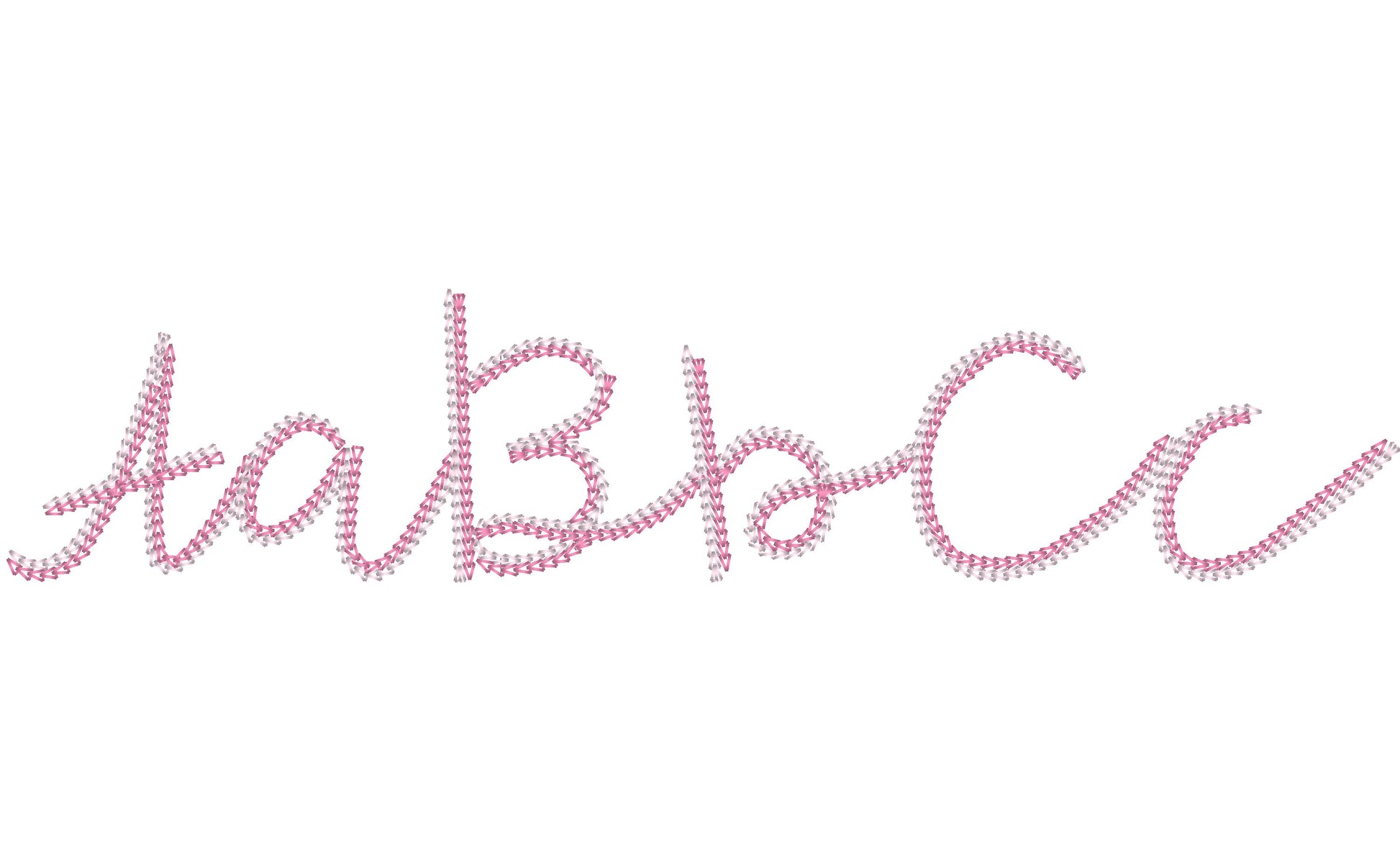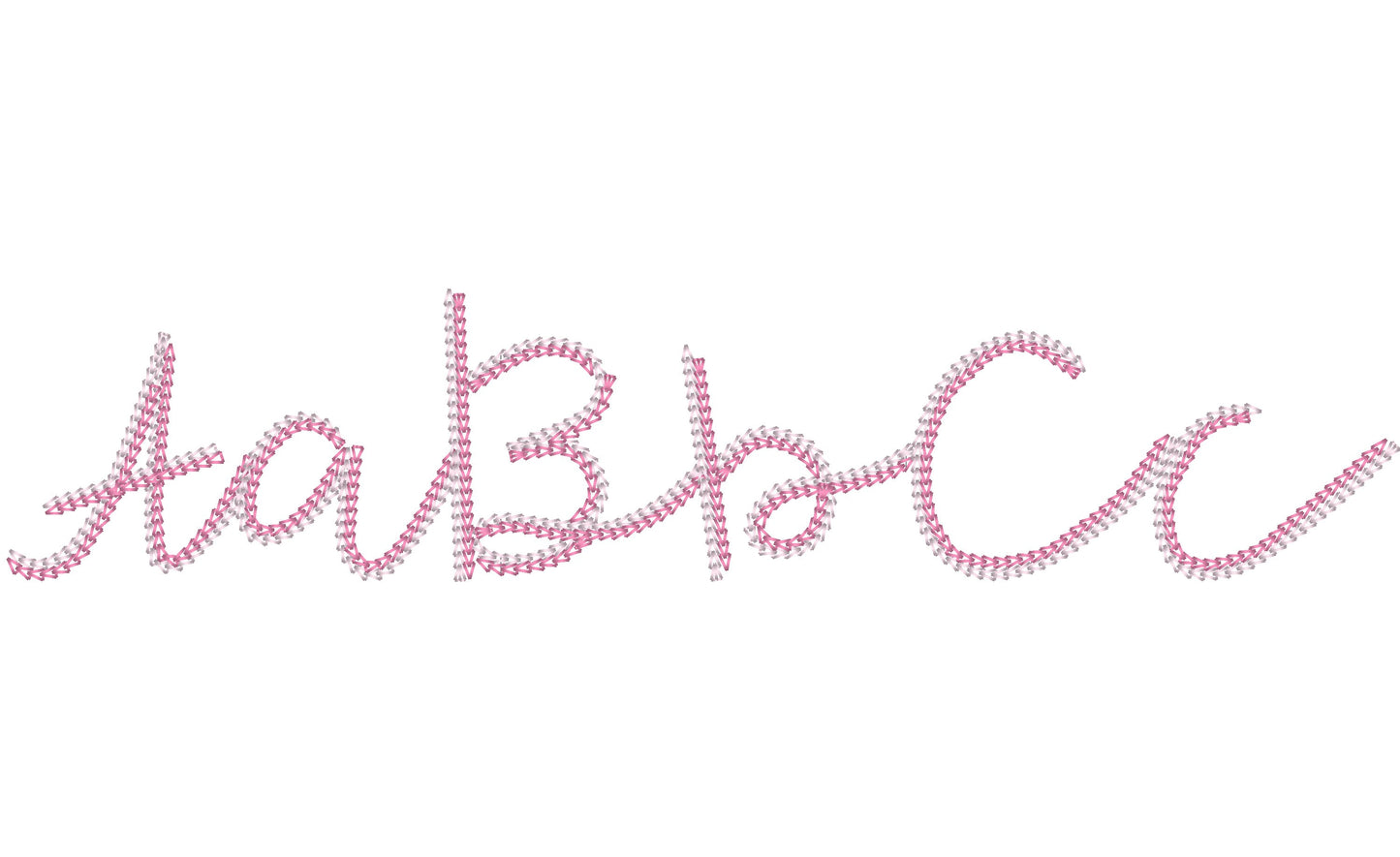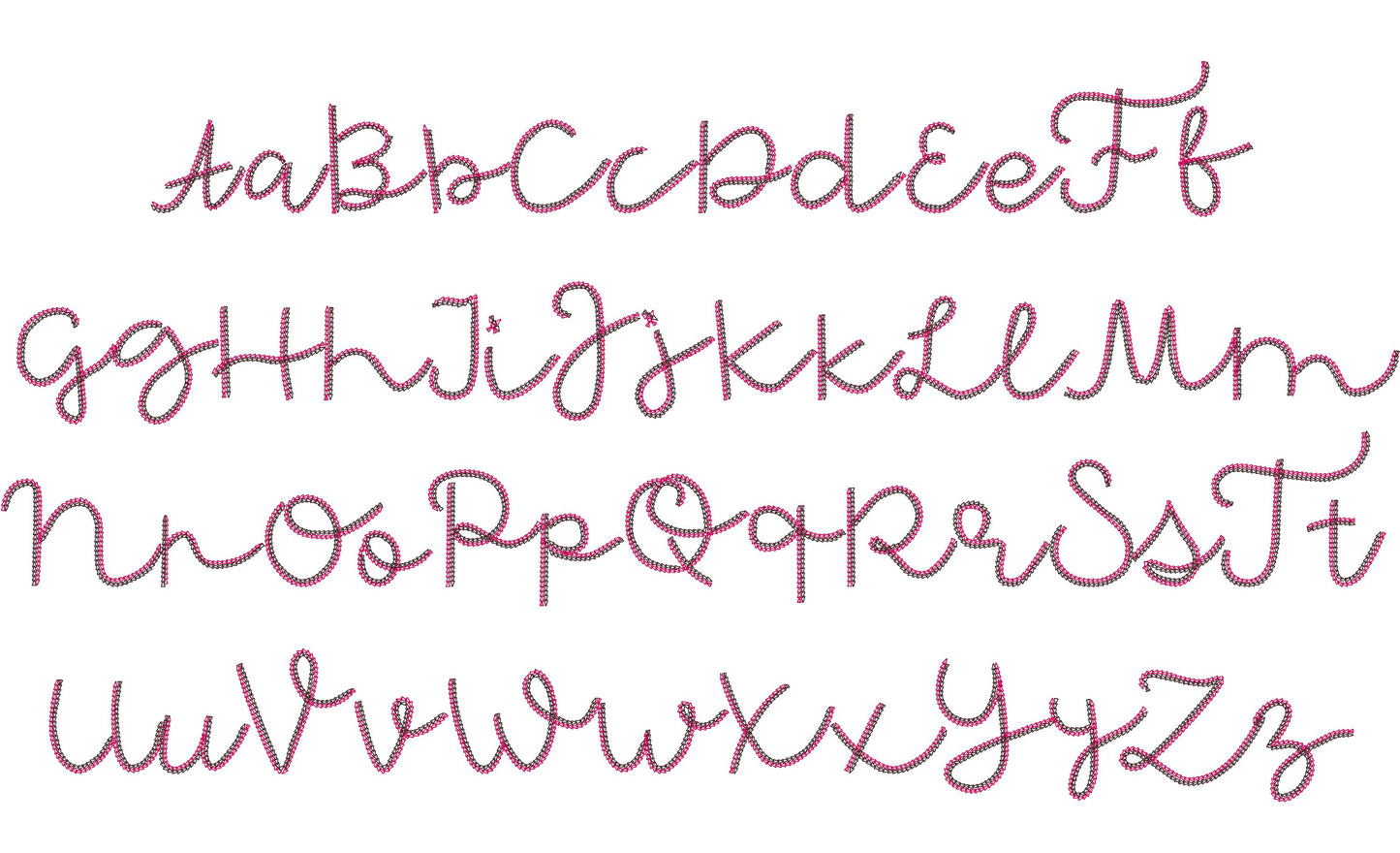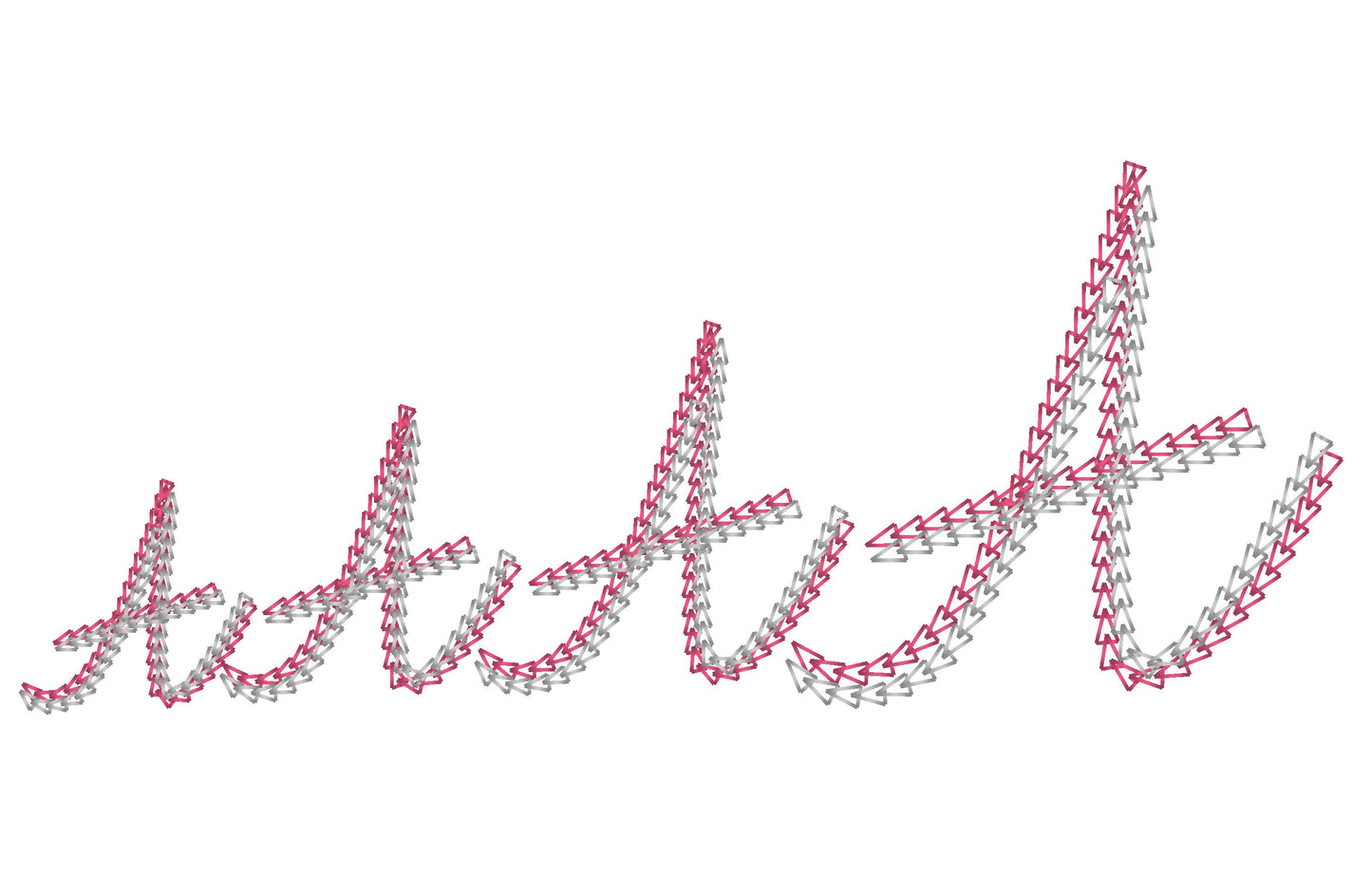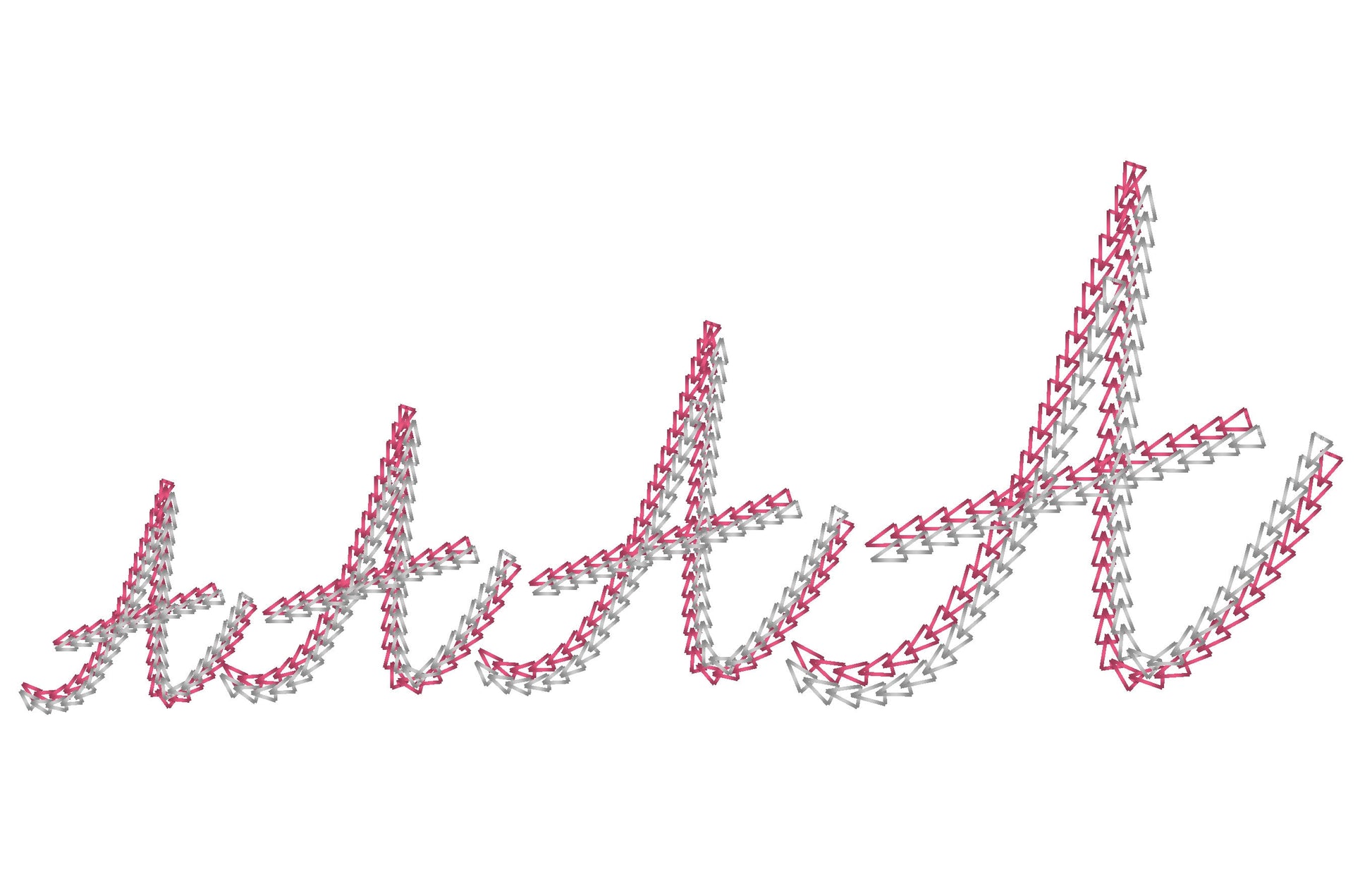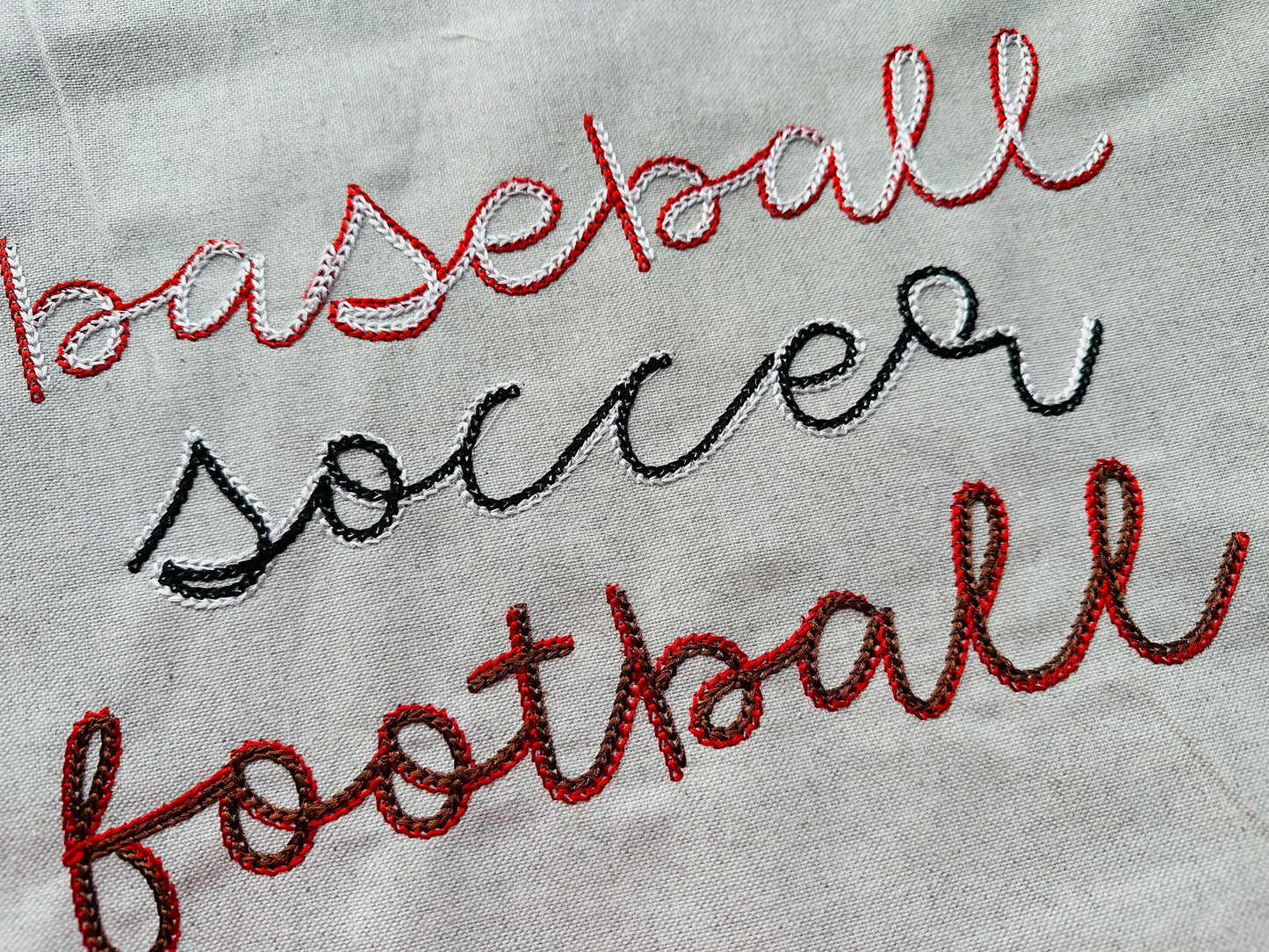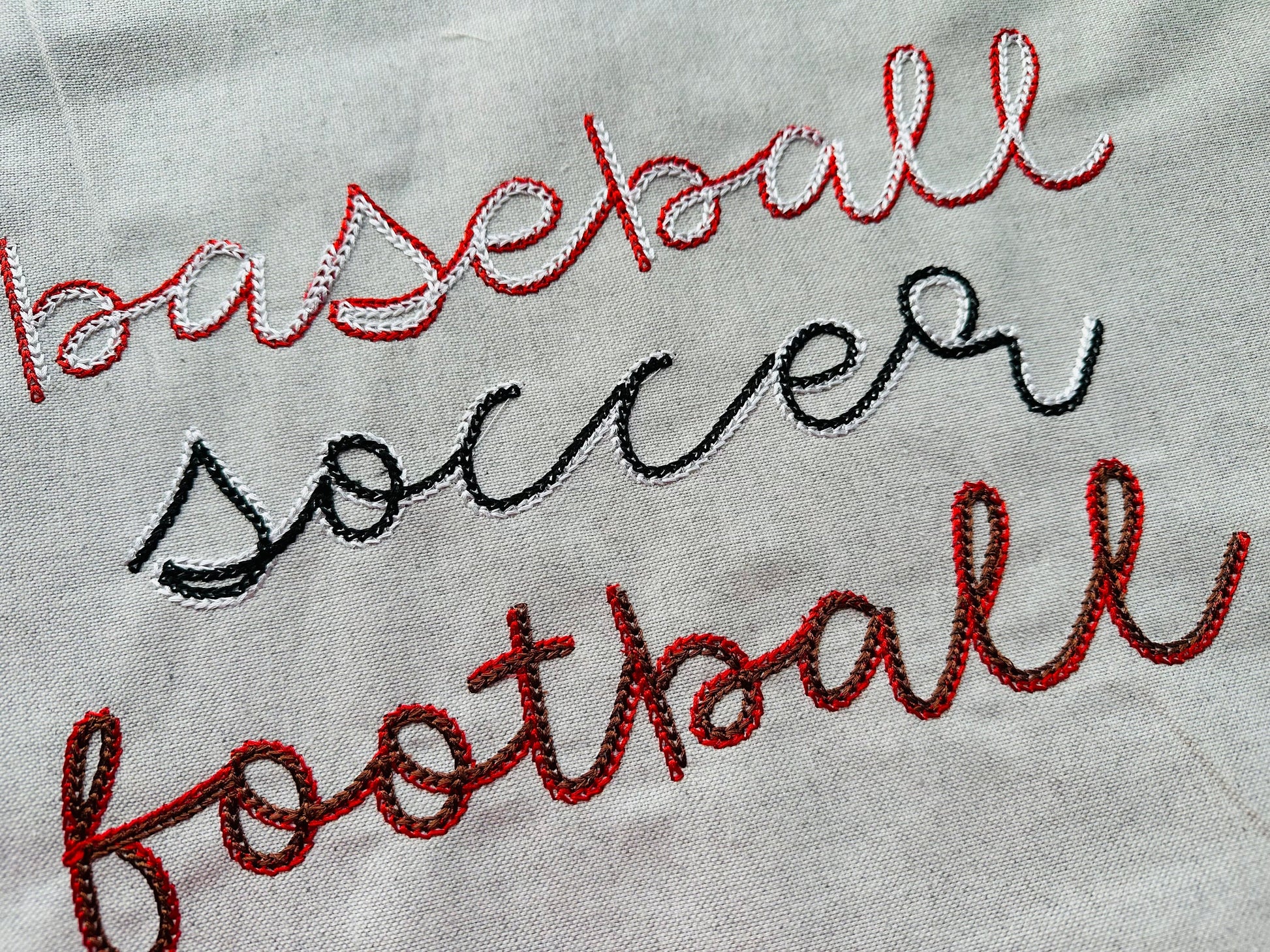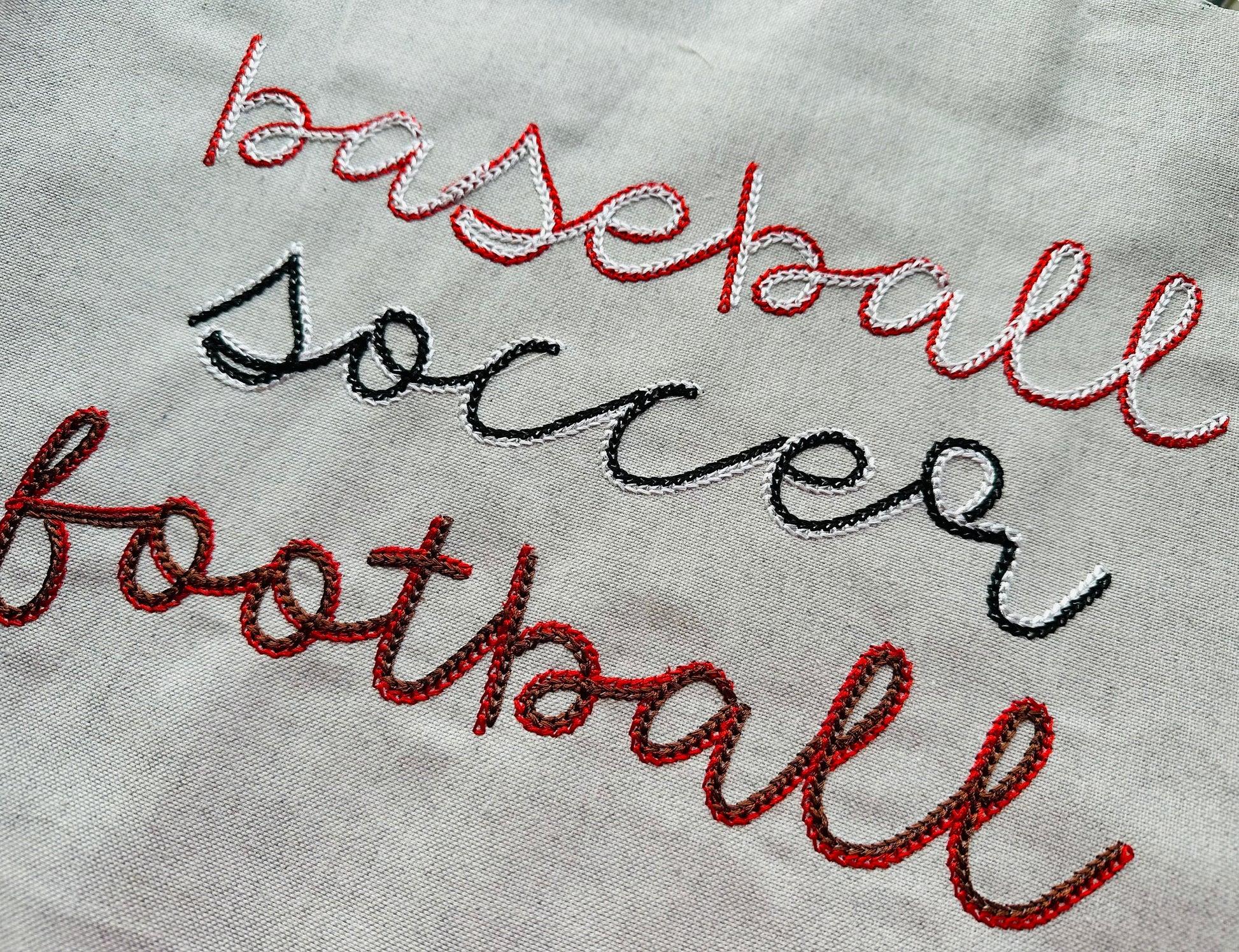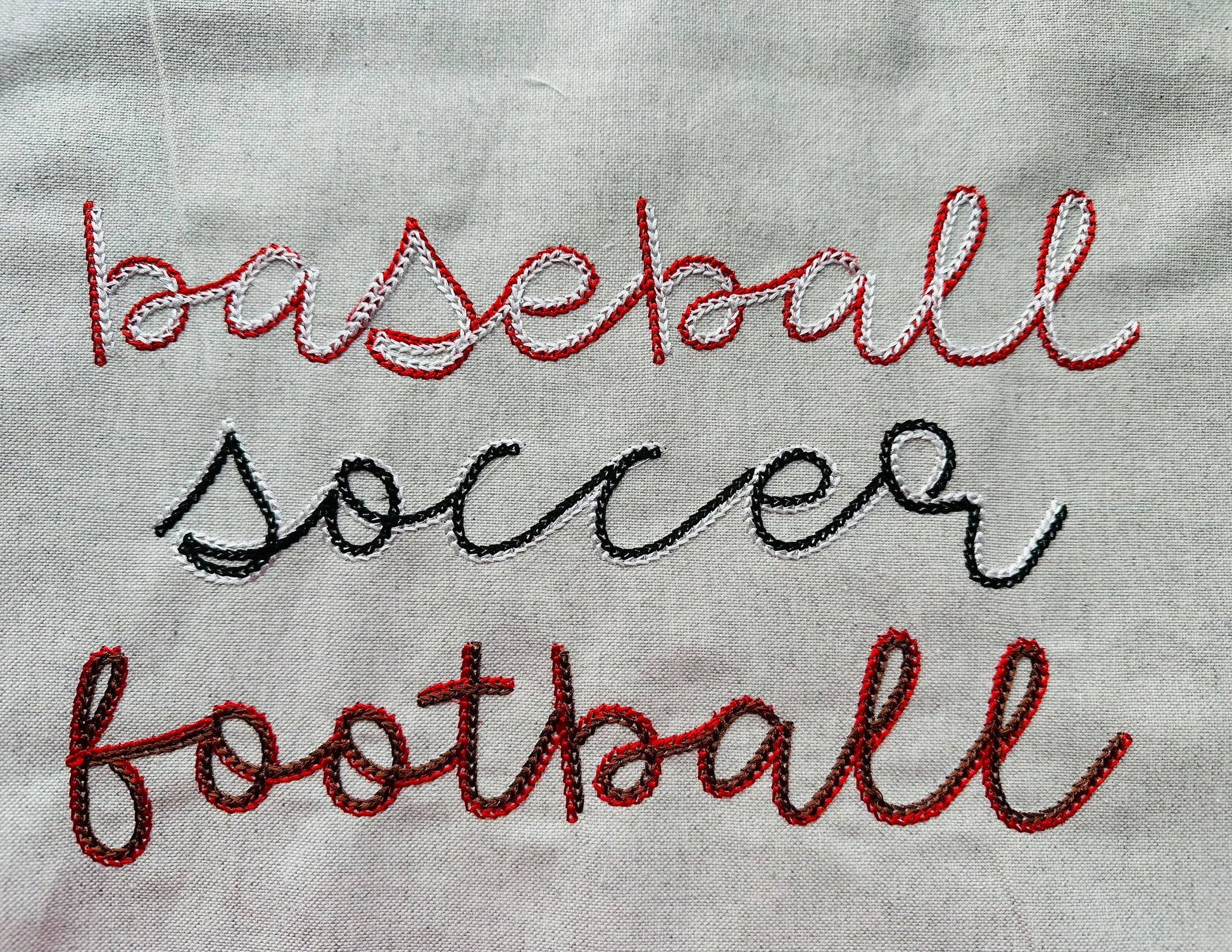
Or click to open the linkA wide double chain script in light stitch, for sporty names and words on sweatshirts, jackets and bags.
Uppercase and lowercase letters, with two styles of lowercase s. Four sizes: 1.5, 2, 2.5 and 3.5 inches.